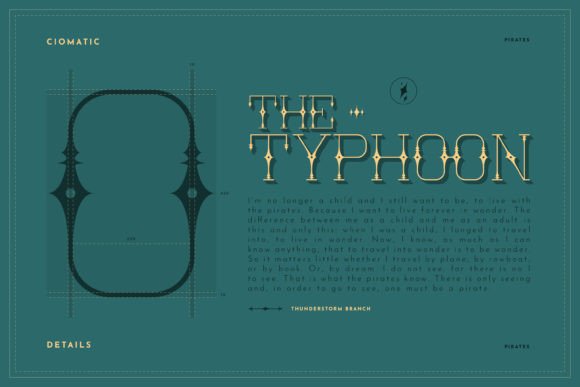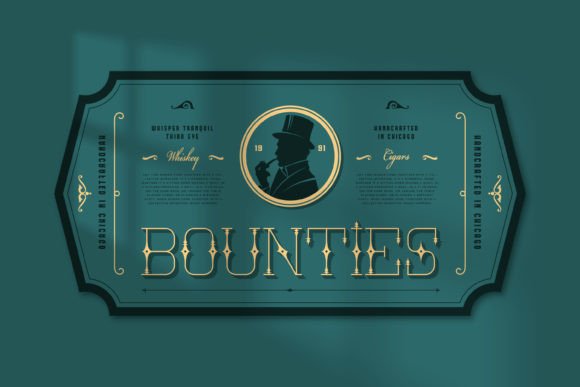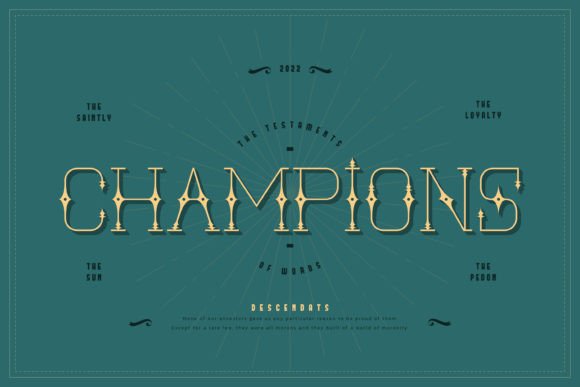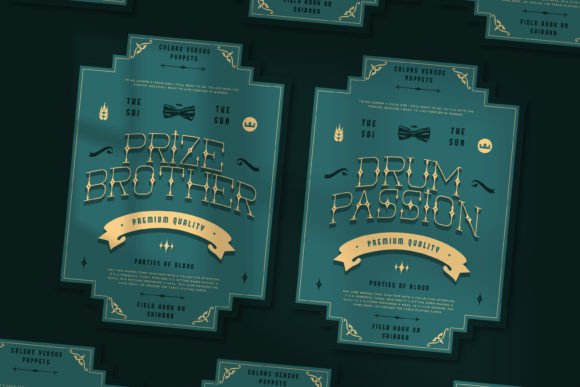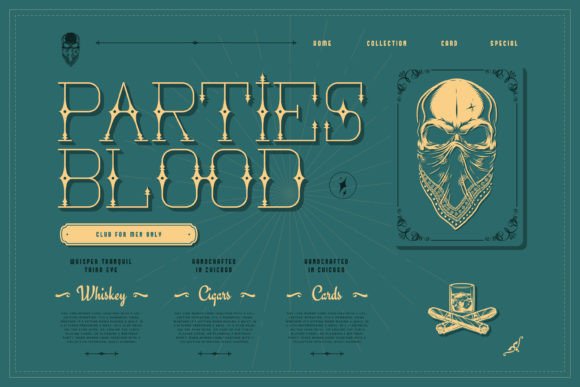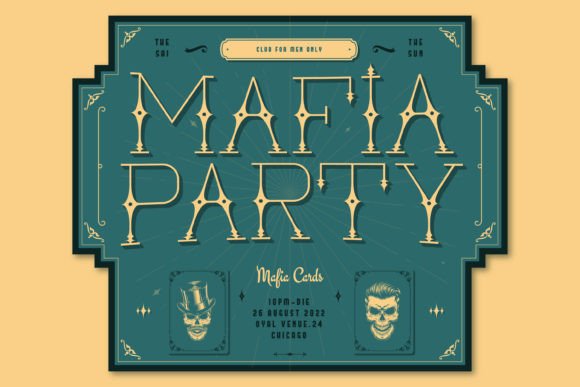
Introduction to Ciomatic Font
Have you ever stared at a blank canvas, wondering how to bring your creative vision to life? That’s where the perfect design resource comes in – and we’re excited to introduce you to the Ciomatic Font. This vintage, western-looking display font is a game-changer for designers looking to add a touch of nostalgia and sophistication to their projects.
With its unique and interesting style, the Ciomatic Font is the perfect addition to any creative project. Whether you’re working on a high-quality branding campaign or a free download for a design community, this font is sure to impress. Its transparent background and bold character make it a versatile design tool that’s perfect for a wide range of applications.
As a valuable resource for designers, the Ciomatic Font offers endless possibilities for creative expression. From elegant typography to eye-catching graphics, this font is sure to elevate your design projects to the next level.
Key Features of Ciomatic Font
- High-quality, elegant design suitable for creative projects
- Unique characteristics include intricate details and ornate flourishes
- Perfect for use in various design applications, including print and digital media
Honest Review: Ciomatic Font
I recently stumbled upon the Ciomatic Font while searching for a high-quality font to use in a design project, and I must say it’s been a game-changer. The fact that it’s available for free download is a huge plus, making it an excellent design resource for creatives on a budget.
The font itself is incredibly versatile, with a range of styles and weights to choose from. I particularly appreciate the transparent background option, which allows for seamless integration into my design projects. ✨
Here are some of the things I like about Ciomatic Font:
- Range of styles and weights to suit different design needs
While the Ciomatic Font is an excellent addition to my design toolkit, I do have a few minor complaints. ⚠️
- The font can be a bit difficult to read at small sizes
Overall, I’m extremely impressed with the Ciomatic Font and would highly recommend it to fellow designers. Its high-quality design, transparent background option, and free download make it an invaluable resource for any creative project.
Tips for Getting the Most Out of Ciomatic Font
For the best results, use Ciomatic Font on a high-quality design with a transparent background. This will allow the font to stand out and add a professional touch to your creative project. You can also experiment with different font sizes and colors to create a unique and eye-catching design.
Ciomatic Font is a versatile design resource that can be used in a variety of creative projects, including logos, business cards, and social media graphics. It’s also great for use in presentations and reports, where a high-quality font can add a professional touch.